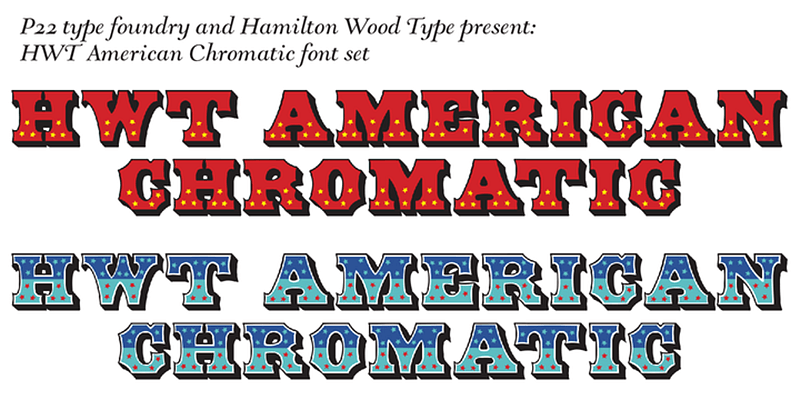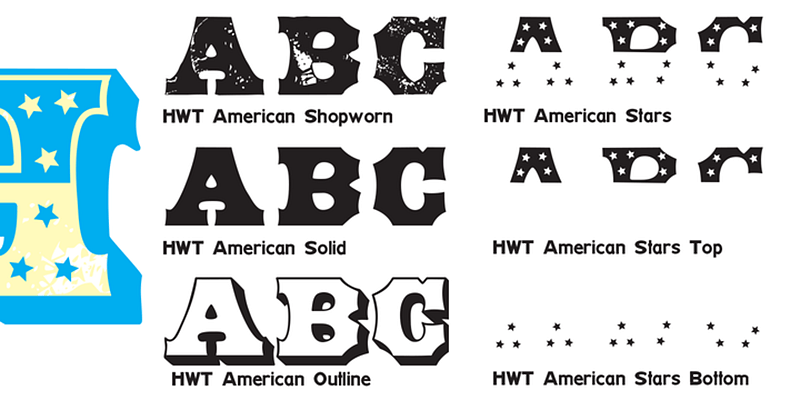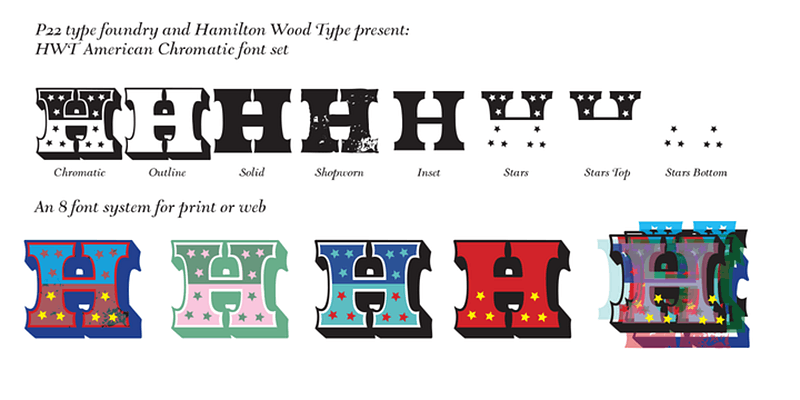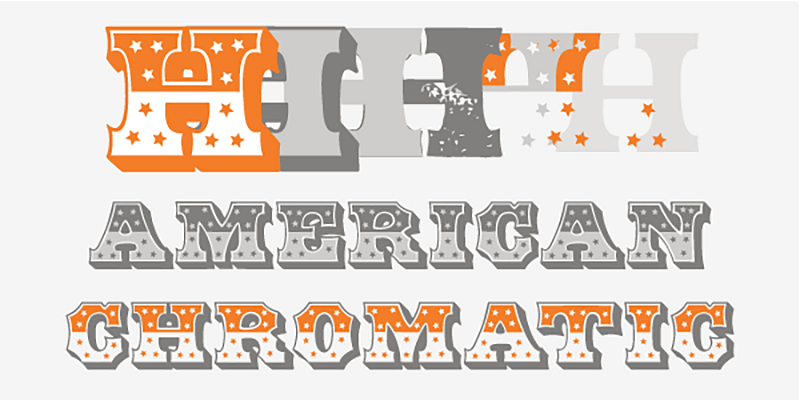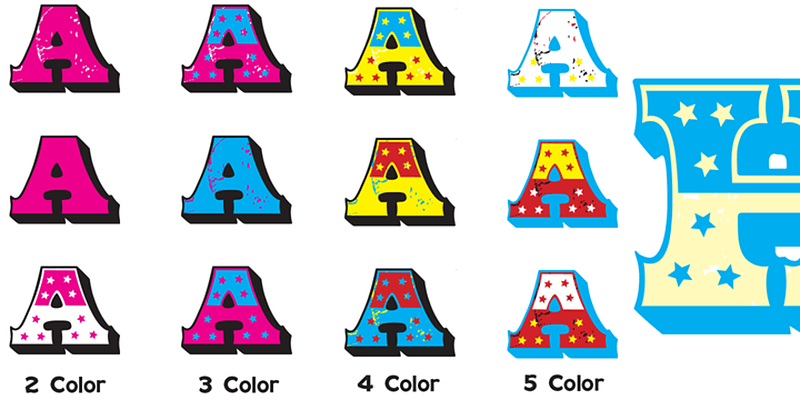
HWT American Chromatic is based on an 19th century chromatic wood type by Wm. H. Page. This digital eight-font set that allows for thousands of possible color and pattern combinations when layered.
Hamilton Wood Type Collection, established in 2012, is a joint venture between P22 Type Foundry and the Hamilton Wood Type & Printing Museum. The founding goal was to safeguard a typographic era and make classic wood type designs available as digital fonts for modern audiences. This historical collection of serif revivals, sans reinterpretations, decorative embellishments, script reclamations, and original chromatic designs is stunningly relevant and usable for any imaginative design practice.